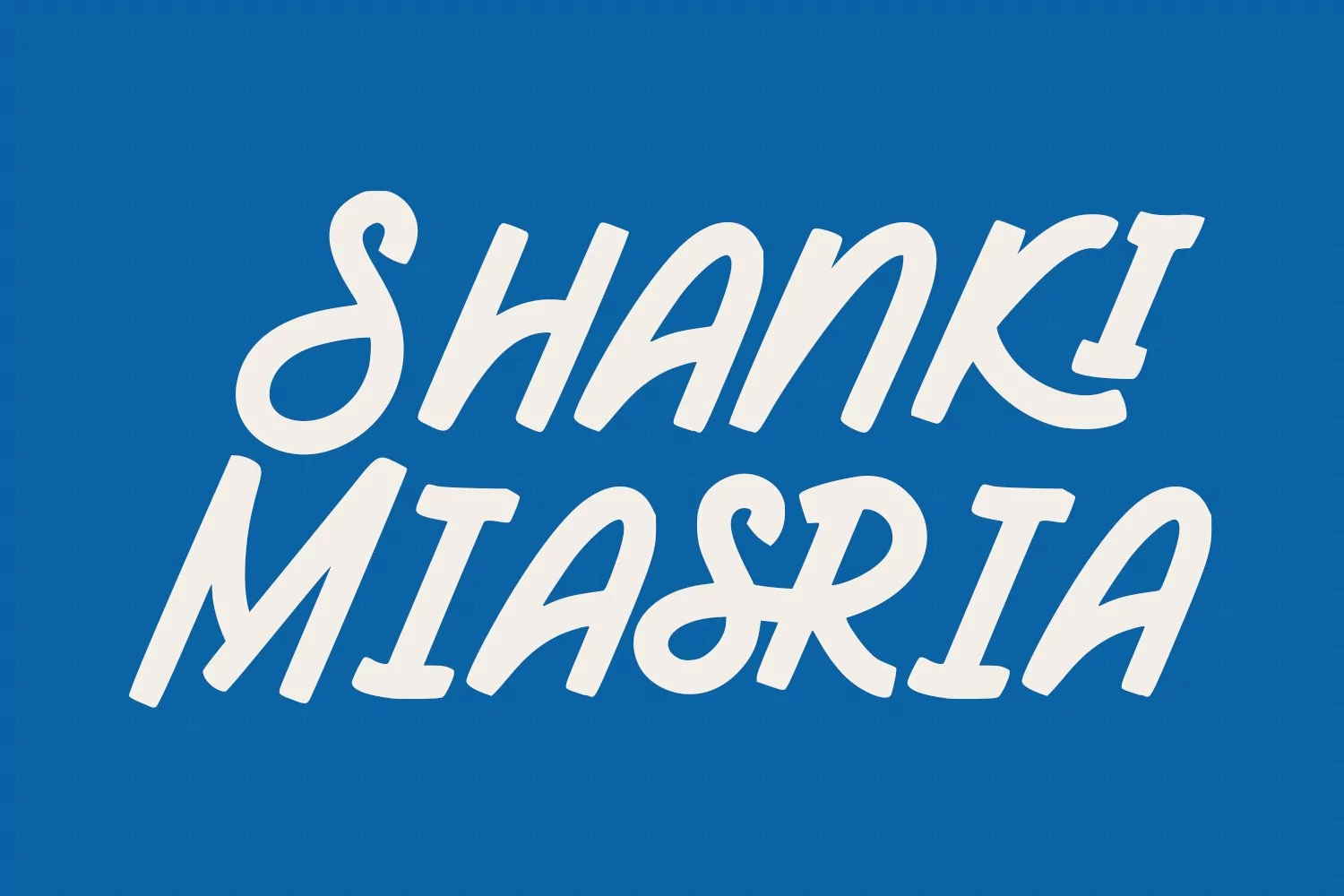
Relaystar is a casual handwritten display font. With medium contrast stroke, fun character with a bit of ligatures and alternates. To give you an extra creative work. Relaystar font support multilingual more than 100+ language. This font is good for logo design, Social media, Movie Titles, Books Titles, a short text even a long text letter and good for your secondary text font with sans or serif. Make a stunning work with Relaystar font.